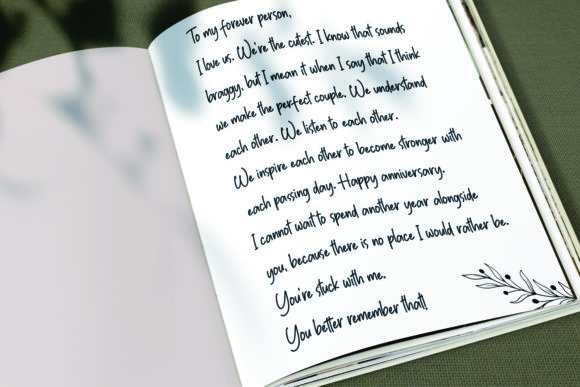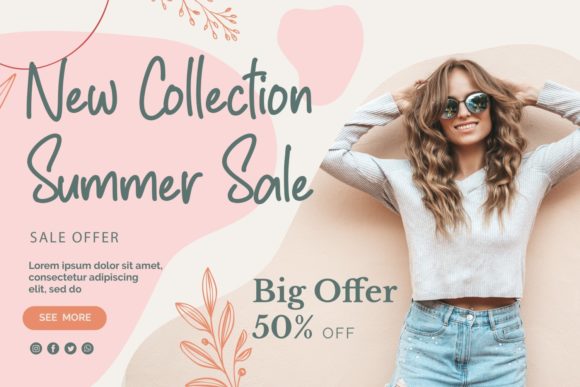
Rainbow Paper Font
db-ku.com - Script & Handwritten -- Rainbow Paper is a stylish, cute, friendly and genuine handwritten font. Whether you use it for cartoon related designs, children games or just any creation that requires a lovely touch, this font will be an amazing choice.